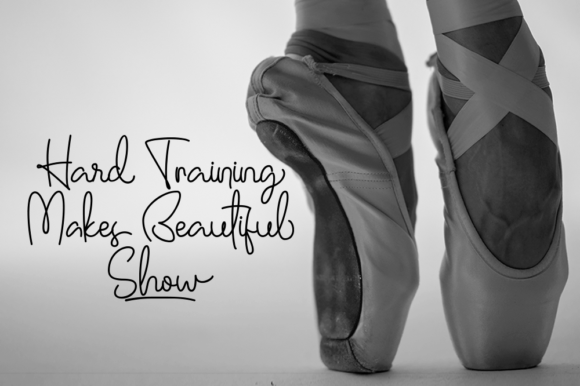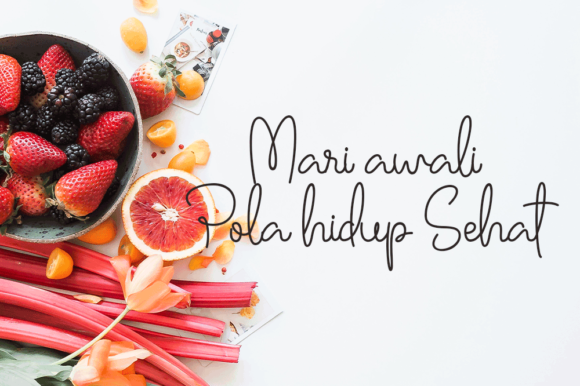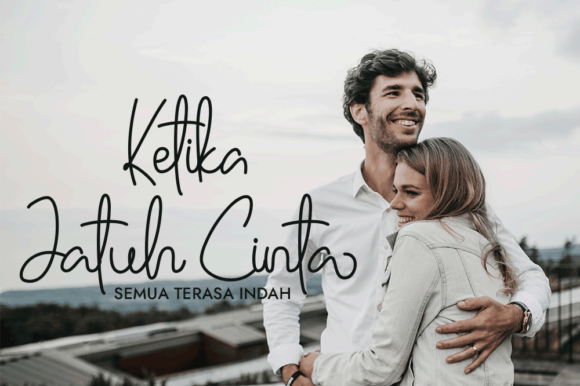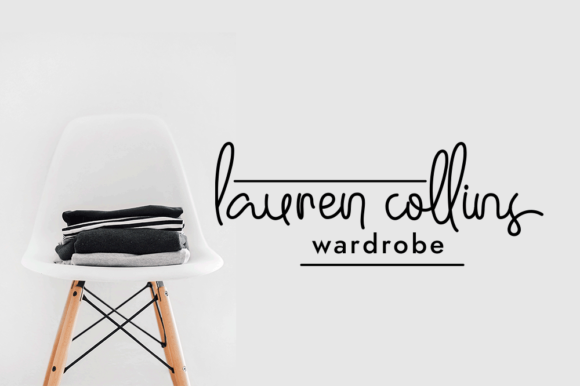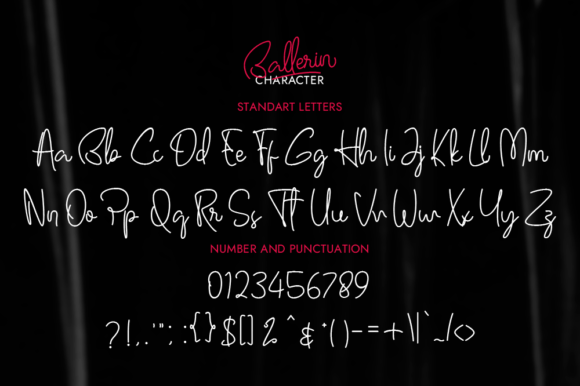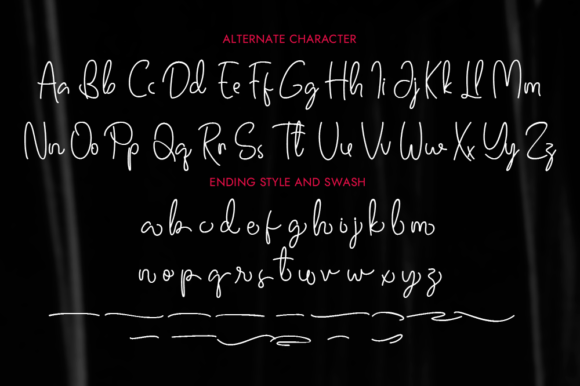
Introduction to Ballerin Font
Remember that moment when you finally find the perfect font to bring your creative idea to life? It’s like the missing piece of a puzzle that suddenly makes everything fall into place. For designers, the search for the perfect font can be a daunting task, but what if I told you that there’s a font that can elevate any design project to new heights? Enter the Ballerin Font, a stunning handwritten font that combines classic typography with a unique twist, making it the ultimate design resource for any creative project.
Whether you’re working on a branding project, designing a logo, or creating a beautiful social media graphic, the Ballerin Font is sure to impress. With its high-quality design and transparent background, this font is perfect for designers who want to add a touch of elegance and sophistication to their work. And the best part? It’s available for free download, making it an invaluable resource for designers on a budget.
Key Features of Ballerin Font
- High-quality, elegant design perfect for creative projects requiring a sophisticated touch.
- Includes 6 styles, including regular, bold, italic, and bold italic, to cater to diverse design needs.
- Perfect for use in logos, typography, and other design elements where a touch of elegance is required.
Honest Review: Ballerin Font
I recently had the chance to work with the Ballerin Font, and I’m excited to share my thoughts on this design resource. As a designer, I’m always on the lookout for high-quality fonts that can elevate my creative projects.
The Ballerin Font is a beautiful, elegant script font that’s perfect for adding a touch of sophistication to your designs. It’s a great choice for wedding invitations, marketing materials, or any project where you want to convey a sense of luxury.
- High-quality design: The Ballerin Font is a well-designed font that’s sure to impress.
- Transparent background: The font comes with a transparent background, which makes it easy to customize and integrate into your designs.
What doesn’t work well: ⚠️
- Limited styles: The Ballerin Font only comes in a single style, which may limit its versatility in certain designs.
- No webfont support: Unfortunately, the font is not available as a webfont, which can make it difficult to use in web design projects.
Overall, I’m impressed with the Ballerin Font. While it may have some limitations, it’s a great choice for designers who want a high-quality, elegant script font for their creative projects.
Experiment with different font sizes, styles, and colors to create a unique look. Use the Ballerin Font in combination with other design elements to add visual interest to your project.
The Ballerin Font is commonly used in wedding invitations, party decorations, and other creative projects that require a elegant and sophisticated look. Its high-quality design makes it perfect for printing or digital use.